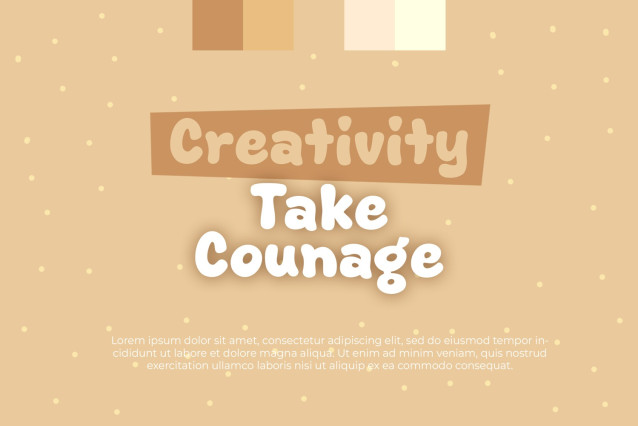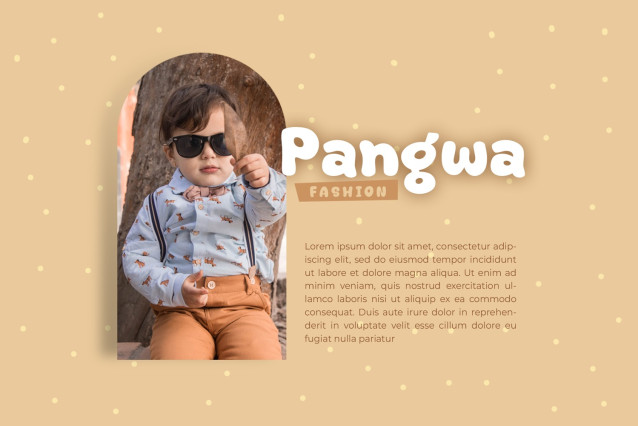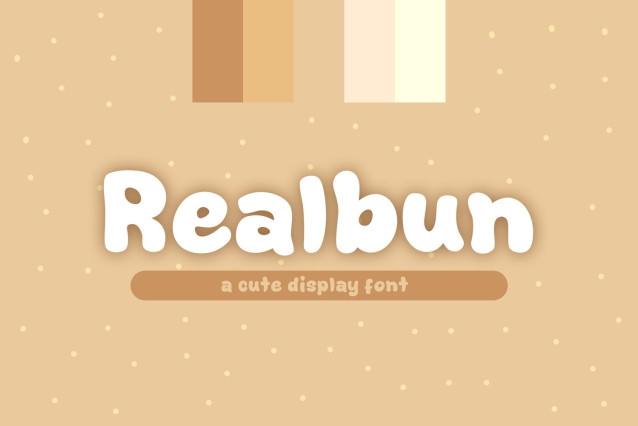
Realbun Playful Font
Realbun Playful Font a font that is very fresh, cute and bold style display font for your design project. Realbun is perfectly suited to logo, stationery, poster, apparel, branding, wedding invitation, card, tagline, layout design, and much more !!.